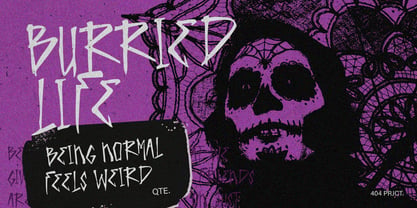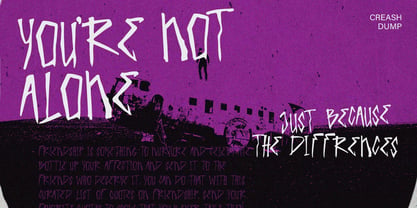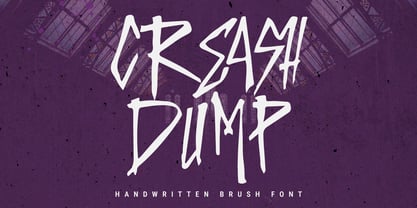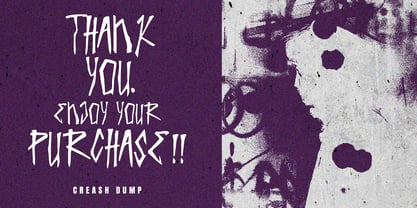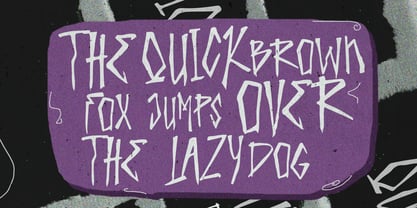
MC Creash Dump
by Maulana Creative
The MC Creash Dump Font Family was designed by Gilang Maulana and published by Maulana Creative. MC Creash Dump contains 1 styles. More about this family
Give your designs an authentic brush handcrafted feel. "Creash Dump Handwritten Brush Font" is perfectly suited to signature, stationery, logo, typography quotes, magazine or book cover, website header, flyer, clothing, branding, packaging design and more.
Designers: Gilang Maulana
Current Foundry: Maulana Creative